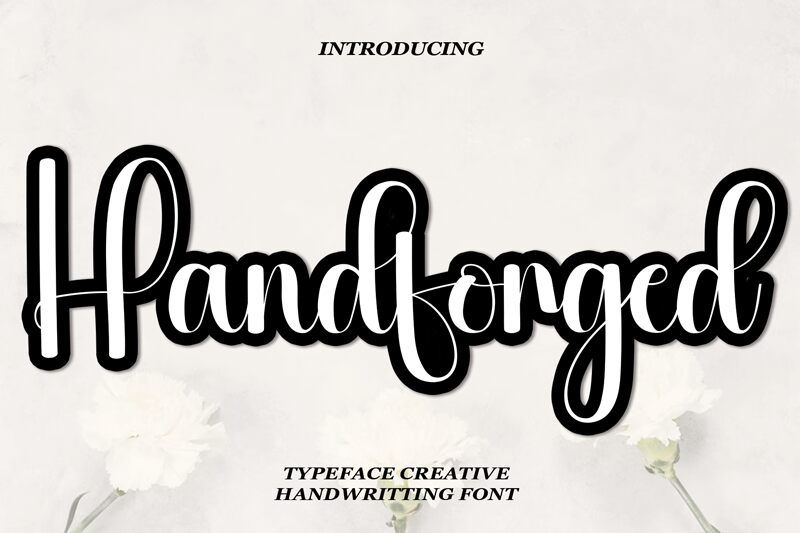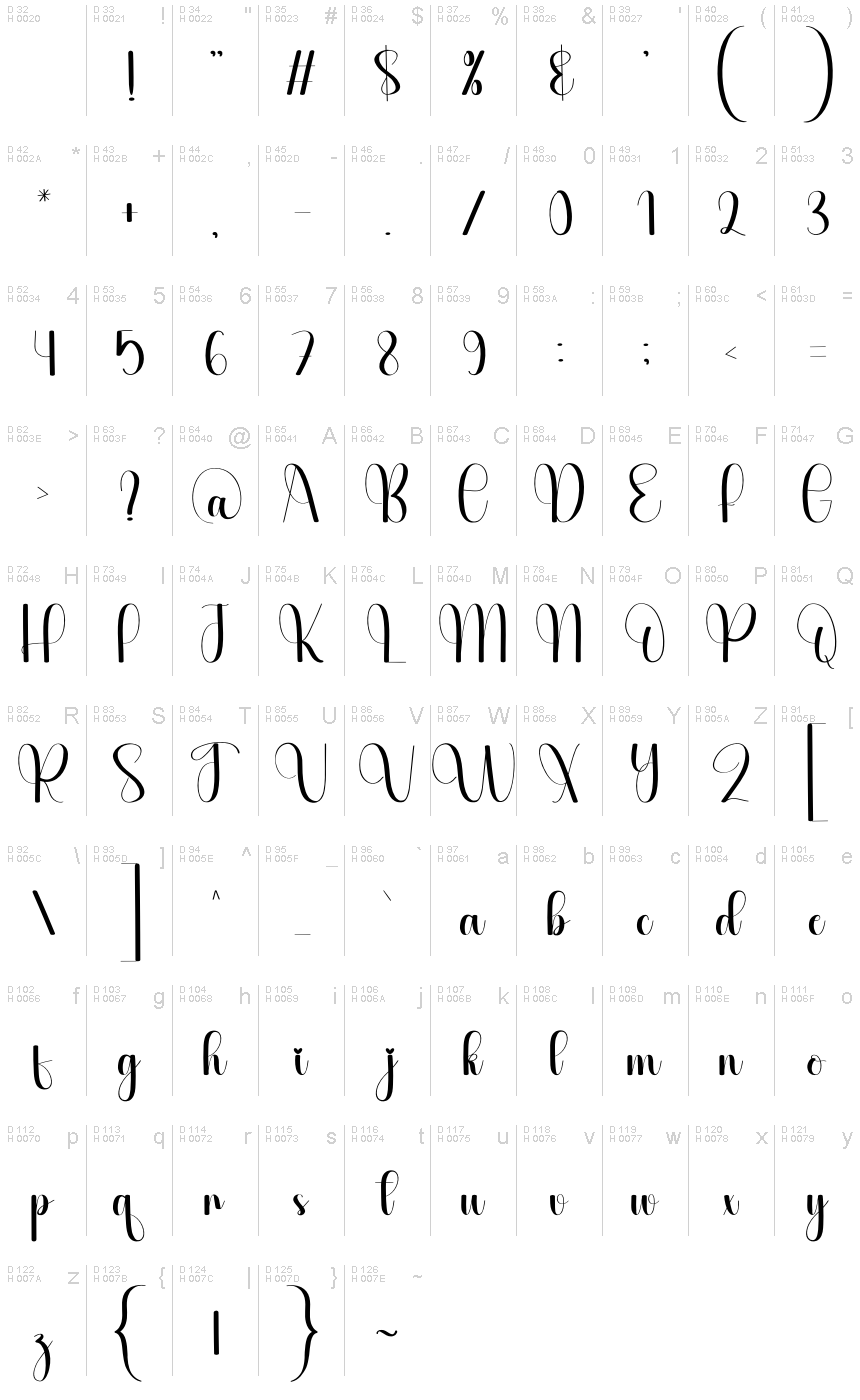
Handforged
Handforged font by Scratchones embodies the elegance of calligraphy, showcasing fluid strokes and gentle curves that evoke a handcrafted charm. Its artistic flair is perfect for adding sophistication to any design project.
The graceful lines and dynamic swashes make it ideal for wedding invitations, branding, and social media graphics. As a free font download, Handforged offers designers an accessible way to incorporate refined style into their creations effortlessly. Its unique character stands out in both personal and commercial uses, making text appear both expressive and memorable.
Whether you're crafting logos or creating elegant stationery, Handforged font provides an exquisite blend of artistry and functionality.